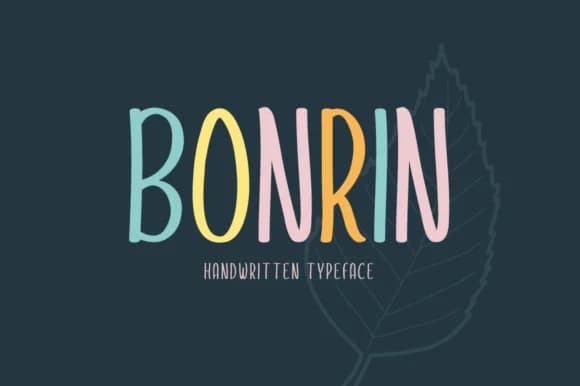
Bonrin Font by Instagram Fonts captures the loose, flowing energy of a pen moving across paper without the weight of overthinking each stroke. The letterforms have that unforced quality you get when subtle variations between letter shapes feel genuinely hand-drawn rather than digitally smoothed or perfected into sameness. Each character carries a hint of bounce and rhythm, giving it real warmth while keeping everything readable and usable even when set small.
This font works beautifully for anyone looking to add genuine personality to their projects. Wedding invitation suites benefit from its approachable elegance, while Etsy sellers have found it ideal for hand-lettered product labels and packaging designs that stand out on crowded shelves. You'll see it shine on greeting cards, baby shower announcements, and DIY craft signage where a personal, authentic touch actually matters to people. The playful letterforms work equally well for custom gift tags and event stationery that people want to keep and remember years later. Its bouncy rhythm makes it suitable for both intimate, one-to-one communication and larger decorative applications on social media or printed materials.
Bonrin Font is a script font that shines as a display or heading face. Pair it with a clean sans-serif or serif font for body text β the contrast creates a clear hierarchy while the two styles stay balanced and easy to read.